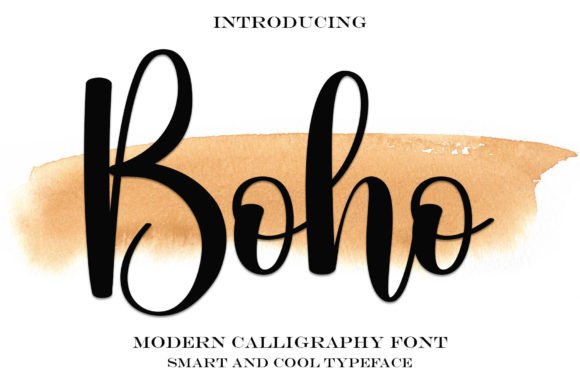
Introducing Boho Font: The Ultimate Festive Typeface for Your Holiday Designs
Are you looking for a font that embodies the spirit of the holiday season? Do you want to add a touch of charm and whimsy to your designs? Look no further than Boho Font, a festive and happy typeface that’s perfect for greeting cards, gift labels, and holiday-themed projects.
What Makes Boho Font So Special?
Boho Font is a unique and decorative typeface that captures the essence of the holiday season. Its decorative elements and flair add a cheerful and nostalgic atmosphere to your words, making it perfect for designers and crafters who want to create eye-catching and engaging designs.
One of the standout features of Boho Font is its PUA (Private Use Area) coding, which allows you to access all the amazing glyphs and ligatures easily. This means you can add an extra layer of creativity to your designs, making them truly one-of-a-kind.
Boho Font is specifically designed with the holiday season in mind, making it the perfect choice for a variety of projects, including:
- Greeting cards: Add a personal touch to your holiday cards with Boho Font’s unique and festive style.
- Gift labels: Make your gifts stand out with beautifully designed labels that feature Boho Font’s decorative elements.
- Holiday-themed projects: From party invitations to festive flyers, Boho Font is the perfect choice for any holiday-themed project.
Why Choose Boho Font?
So why choose Boho Font over other typefaces? Here are just a few reasons why designers and crafters love Boho Font:
- Unique and decorative: Boho Font’s decorative elements and flair make it stand out from other typefaces.
- Festive and happy: Boho Font captures the spirit of the holiday season, making it perfect for holiday-themed projects.
- Versatile: Boho Font can be used for a variety of projects, from greeting cards to party invitations.
Tips for Using Boho Font
Here are a few tips for getting the most out of Boho Font:
- Experiment with different colors: Boho Font looks great in a variety of colors, so don’t be afraid to experiment and find the perfect hue for your design.
- Mix and match: Combine Boho Font with other typefaces to create a unique and eye-catching design.
- Play with glyphs and ligatures: With PUA coding, you can access a range of glyphs and ligatures that add an extra layer of creativity to your designs.
Whether you’re a seasoned designer or a crafter looking for a unique touch, Boho Font is sure to become a favorite in your collection. So go ahead, get creative, and let Boho Font bring a cheerful and nostalgic atmosphere to your words!